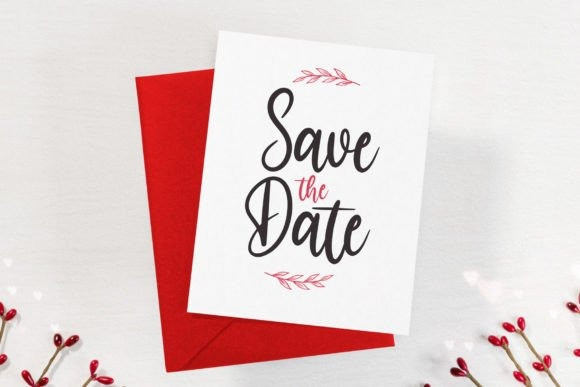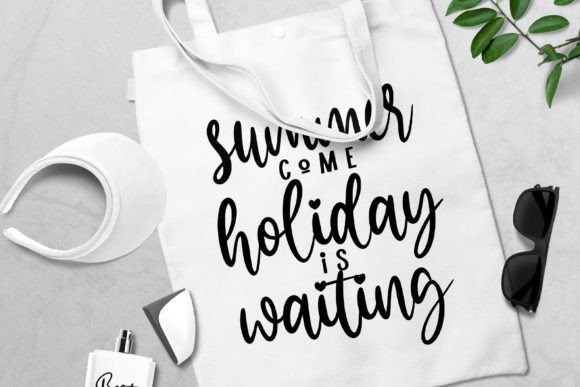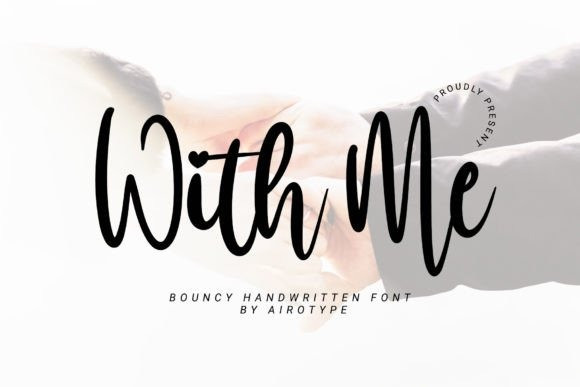
With Me Font
With Me Font is a simple and bouncy handwritten script. Not too thin and not too thick, balanced and varied, this font was designed to enhance the beauty of your projects.